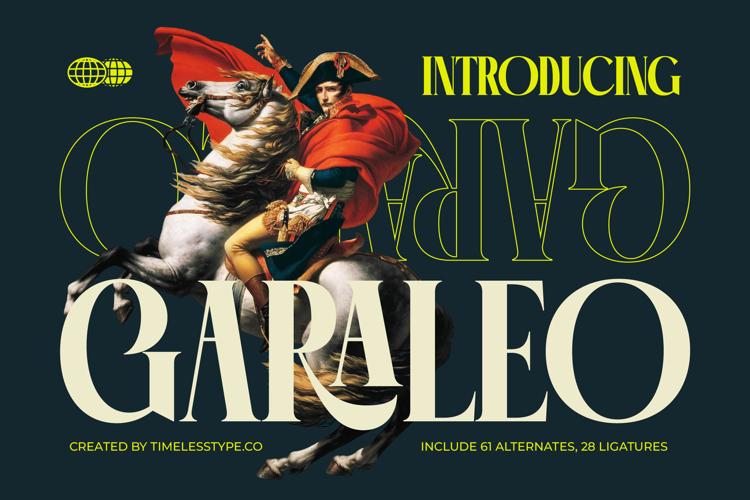
Garaleo - Modern Serif Font
Commanding attention with refined elegance, introducing Garaleo - Modern Serif Font. This exceptional typeface masterfully blends classic serif sophistication with a fresh, contemporary aesthetic, making it an indispensable asset for designers seeking a truly distinctive voice. Its high-contrast letterforms and meticulously crafted details exude a sense of luxury and professionalism, ensuring your visual communications always leave a powerful, lasting impression.
Unlock unparalleled creative freedom with Garaleo - Modern Serif Font’s rich feature set. Designed for ultimate typographic excellence, it includes an impressive collection of 61 stylistic alternates and 28 ligatures, allowing for endless customization and unique design possibilities. These expansive options empower you to craft bespoke headlines, logos, and branding materials that resonate with precision and artistic flair, setting your projects apart.
Reach a global audience without compromise. With its extensive multilingual support, Garaleo - Modern Serif Font adapts seamlessly across global markets, making it incredibly versatile for international projects. This comprehensive language coverage ensures your message maintains its integrity and sophisticated appeal, regardless of the target demographic, cementing its status as a reliable choice for worldwide brand consistency.